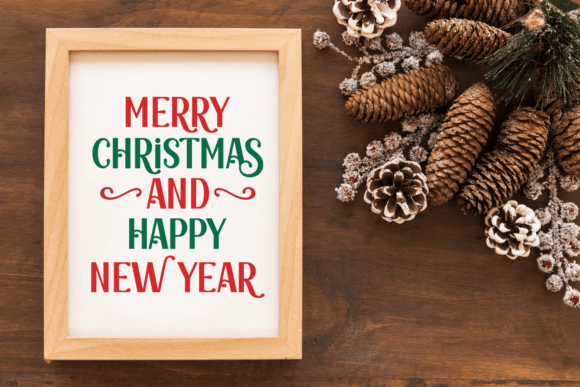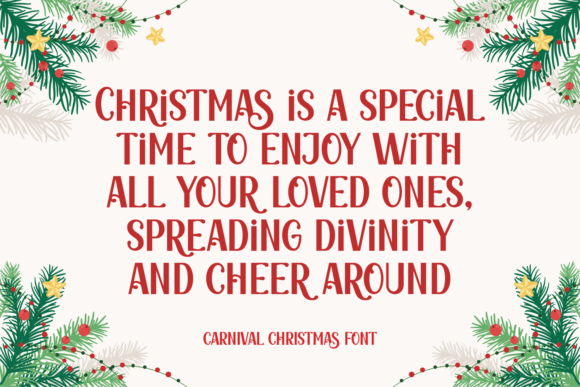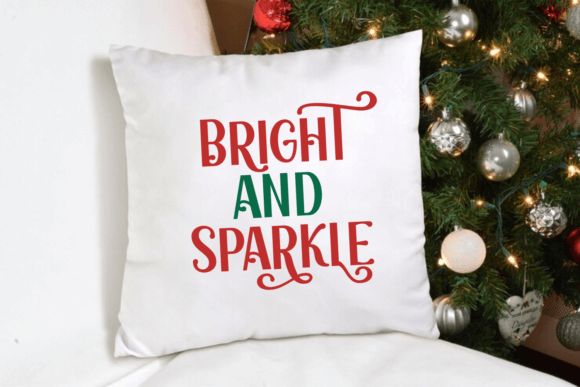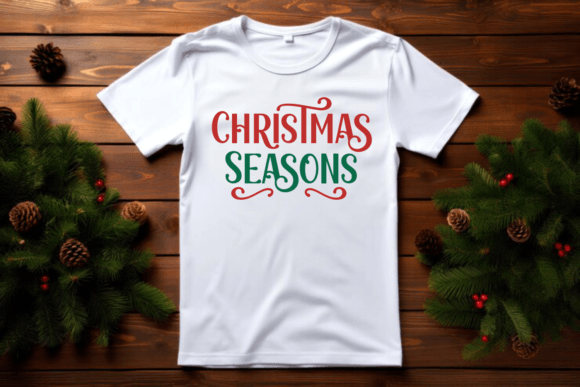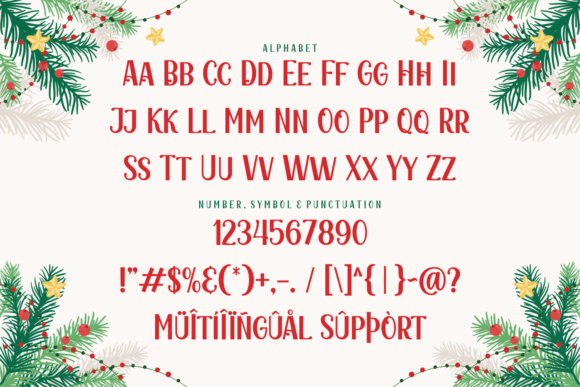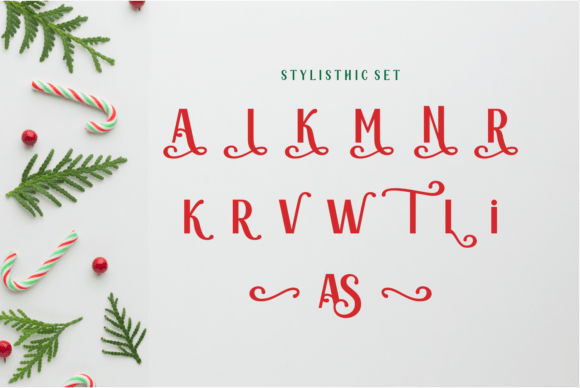
Carnival Christmas Font: Elevate Your Holiday Designs with Elegance and Cheer
As the holiday season approaches, designers and crafters are on the lookout for the perfect typography to make their Christmas cards, invitations, and seasonal projects stand out. If you’re searching for a font that embodies both modern sophistication and festive spirit, look no further than Carnival Christmas. This modern serif font is designed to bring a touch of elegance and playfulness to your holiday designs, making it an ideal choice for those who want to create memorable and stylish text.
The Essence of Carnival Christmas Font
Carnival Christmas is not just a font; it’s an experience. It combines sleek lines with a hint of playfulness, creating a unique and captivating visual identity for your holiday projects. Whether you’re designing Christmas cards, holiday invitations, or festive decorations, this font is sure to infuse your creations with a stylish and festive spirit.
Key Features of Carnival Christmas Font
• Modern Serif Design: Carnival Christmas boasts a contemporary serif design that adds a touch of sophistication to your holiday projects.
• Elegant and Playful: The font strikes the perfect balance between elegance and playfulness, making it versatile for various design applications.
• Festive Cheer: With its unique design elements, Carnival Christmas captures the essence of the holiday season, bringing joy and cheer to your designs.
• Versatile: This font is perfect for a wide range of projects, including Christmas cards, invitations, banners, and more.
Why Choose Carnival Christmas Font?
There are countless fonts available for holiday designs, but Carnival Christmas stands out for several reasons:
• Uniqueness: In a sea of traditional holiday fonts, Carnival Christmas offers a fresh and modern take on serif typography.
• Readability: The clear and distinct letterforms ensure that your text is easy to read, even at smaller sizes.
• Customization: The font’s design allows for easy customization, enabling you to tailor it to fit your project’s specific needs.
• Timeless Appeal: While it’s designed for the holiday season, Carnival Christmas has a timeless quality that will keep your designs looking stylish for years to come.
Using Carnival Christmas Font in Your Projects
Incorporating Carnival Christmas into your holiday designs is straightforward. Here are some ideas to get you started:
• Christmas Cards: Create stunning Christmas cards with personalized messages that stand out with Carnival Christmas.
• Holiday Invitations: Set the tone for your holiday party or event with elegant and festive invitations.
• Seasonal Banners: Design eye-catching banners for your website, social media, or physical displays.
• Festive Decorations: Use the font in your digital or print decorations to add a touch of holiday cheer.
Tips for Maximizing Impact
To get the most out of Carnival Christmas, consider the following tips:
• Pair with Complementary Fonts: Combine Carnival Christmas with sans-serif fonts for a dynamic and contrasting look.
• Experiment with Colors: While traditional holiday colors like red and green are always a hit, don’t be afraid to try out different color schemes.
• Play with Sizes: Use varying font sizes to create visual hierarchy and emphasize key messages.
Font Name Carnival Christmas Font
Author Wakhamm (7NTypes)
Carnival Christmas font is a game-changer for designers and crafters looking to elevate their holiday designs. Its unique blend of modern elegance and festive cheer makes it the perfect choice for creating memorable and stylish text. Whether you’re designing Christmas cards, invitations, or seasonal projects, Carnival Christmas is sure to infuse your creations with a stylish and festive spirit, making your text as memorable as the holiday itself.